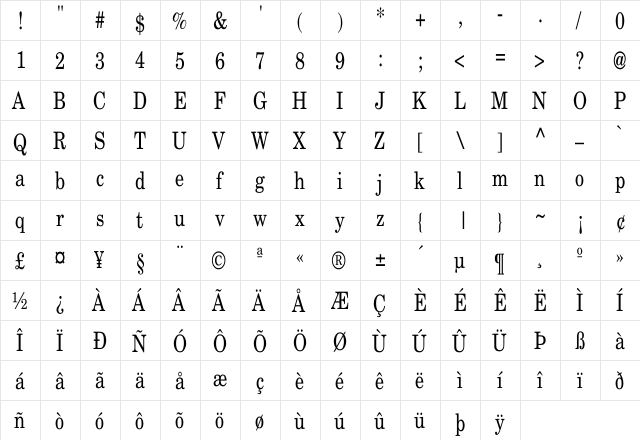
NewCenturySchlbk-Roman Cn Regular
Design Context for NewCenturySchlbk-Roman Cn Typeface
NewCenturySchlbk-Roman Cn takes a measured approach to typography — its balanced proportions and neutral character make it a reliable workhorse for both digital and print work.
Pro Tip: Use NewCenturySchlbk-Roman Cn in both headline and body roles to test its range before committing to a single application.